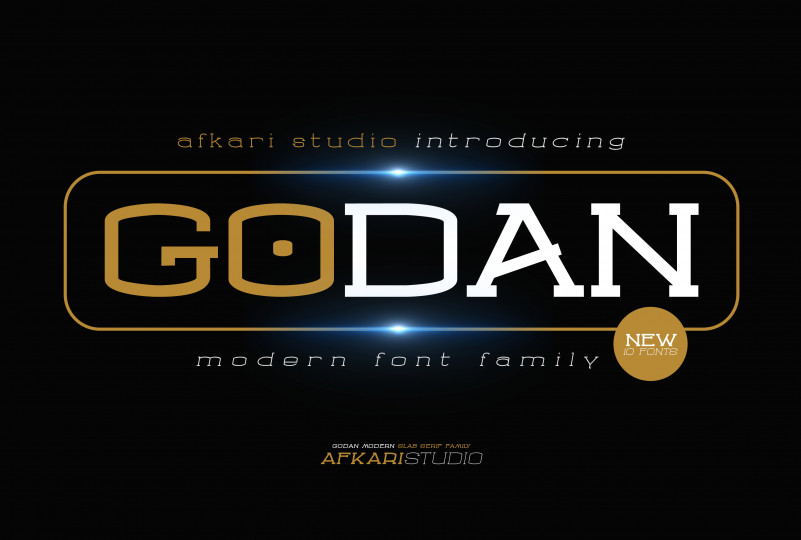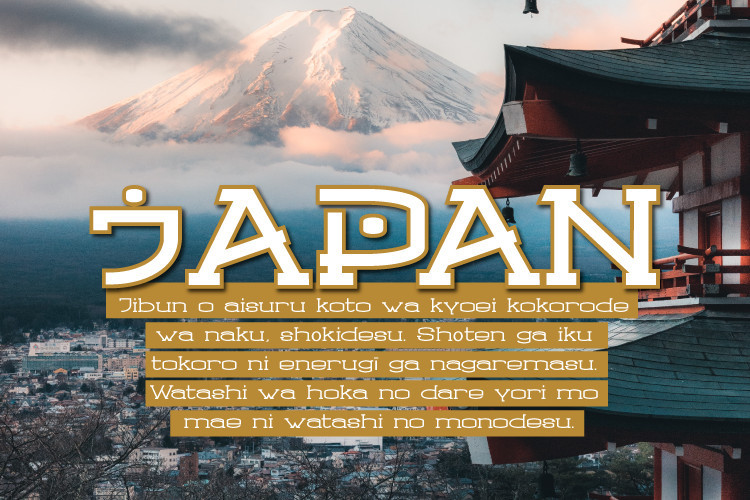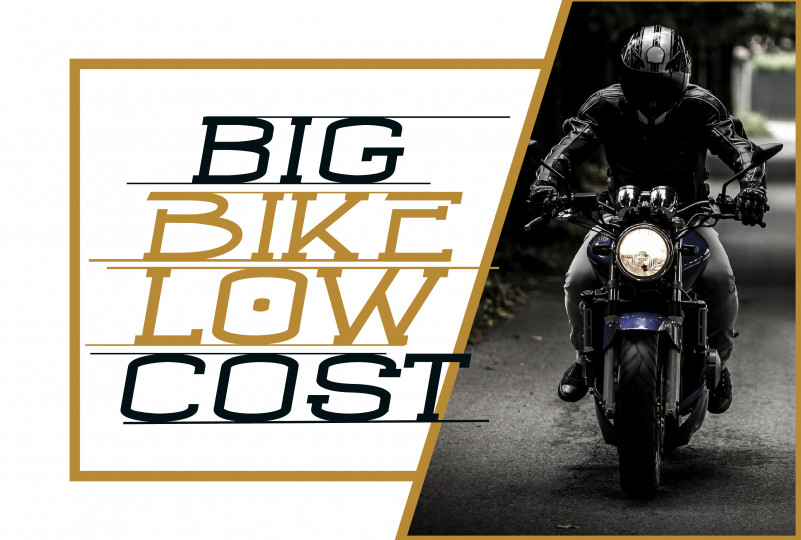
Godan Modern Slab Serif Font Family
Godan is a modern Slab Serif font family with minimal, modern,and futuristic style. This font works perfect for you who needs a typeface for headline, logotype, apparel, branding, packaging, advertising, branding, packaging, advertising etc. This typeface is comes in uppercase, lowercase, punctuation, symbols, numerals, alternates, and support multilingual.
Features;
• 10 styles; Godan Thin, Godan Thin Italic, Godan Light, Godan Light Italic, Godan Regular, Godan Italic, Godan Bold, Godan Bold Italic, Godan Black, Godan Black Italic
• Multilingual support for; ä ö ü Ä Ö Ü ß ¿ ¡